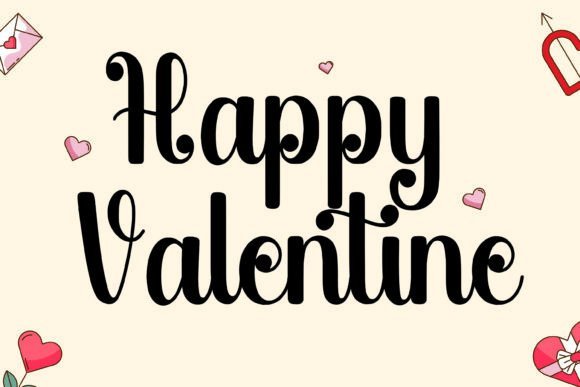
Unlock the Secret to Making Your Designs Shine This Valentine’s Day
As you sit at your crafting table, surrounded by colorful pens, papers, and scissors, you can’t help but feel a sense of excitement and creativity. You’re about to make something special, something that will bring a smile to someone’s face. Whether it’s a handmade card, a customized gift tag, or a beautiful piece of artwork, you want it to be perfect. That’s where the Happy Valentine Font comes in – a charming script handwritten font designed to bring warmth and elegance to your creative projects.
This beautiful font is more than just a design element; it’s a way to add a personal touch to your work. With its flowing strokes and romantic curves, it’s perfect for themes like Valentine’s Day, weddings, and birthdays. The Happy Valentine Font is designed for versatility, supporting various design formats, including SVG, making it perfect for crafting, lettering, and digital design.
Happy Valentine Font Key Features
- Unique Characteristics: Hand-drawn, cursive, and script font with a playful, whimsical feel, perfect for Valentine’s Day and romantic designs
Happy Valentine Font Review
I recently had the chance to work with the “Happy Valentine Font” and here’s my honest review.
- Unique and playful design: The font has a fun, handwritten feel that’s perfect for adding a touch of whimsy to your designs.
- Expressive characters: Each letter is carefully crafted to convey a sense of emotion and personality.
- Cute and romantic: The font is ideal for Valentine’s Day-themed projects, weddings, and other romantic occasions.
- Limited font weight options: The font only comes in one weight, which may limit its versatility in certain design contexts.
- No bold or italic versions: This may make it difficult to use the font in situations where bold or italic text is required.
- May not be suitable for formal designs: The font’s playful, handwritten feel may not be suitable for formal or professional designs.
Overall, I think the “Happy Valentine Font” is a lovely addition to any designer’s toolkit. While it has some limitations, its unique design and expressive characters make it a great choice for certain projects. Just be mindful of its limitations and use it in situations where its playful feel will shine through.
Use the Happy Valentine font to add a touch of romance and whimsy to your designs.
Experiment with different font sizes, colors, and styles to create a unique look.
Pair the font with other decorative elements, such as hearts and flowers, to create a festive atmosphere.
Valentine’s Day cards and invitations
Wedding invitations and decorations
Love-themed social media posts and graphics
Alternatives to “Happy Valentine Font” for Designers
Great Vibes Font is a modern, elegant script font perfect for creating a romantic atmosphere. It’s ideal for wedding invitations, valentine’s day cards, and other love-themed designs. In comparison to Happy Valentine Font, Great Vibes Font has a more sophisticated and refined look, making it suitable for upscale designs.
Pacifico Font is a beautiful, cursive script font that exudes a sense of warmth and friendliness. It’s great for creating a casual, yet romantic ambiance. Unlike Happy Valentine Font, Pacifico Font has a more laid-back and relaxed feel, making it perfect for everyday designs, such as social media posts and blog articles.